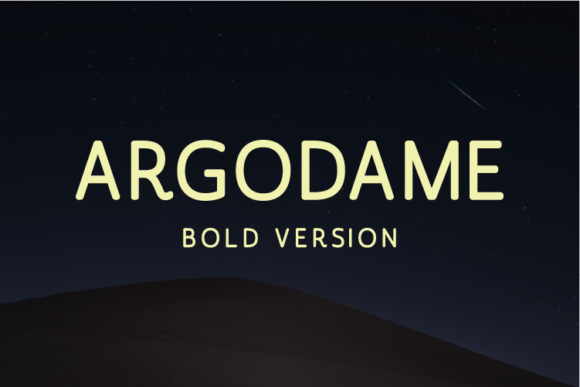
As a designer, you’ve probably experienced that moment when you’re staring at a blank page, searching for the perfect font to bring your idea to life. It’s like waiting for the right key to unlock the door to a beautiful melody – you know it’s out there, but you’re not quite sure what it sounds like yet.
That’s where the Argodame Bold Font comes in – a rounded sans serif font that exudes friendliness and expressiveness, making it an excellent choice for headlines, logotypes, and branding. Its modern and contemporary style, paired with classic proportions, make it a valuable addition to any designer’s toolkit.
With the Argodame Bold Font, you’ll be able to add a touch of sophistication and elegance to your designs, making it a go-to choice for books, magazines, motion graphics, and more.
Argodame Bold Font Key Features
- Font Family: Argodame Bold, a sans-serif font designed for clear readability
- Unique Characteristics: Argodame Bold features a distinctive, modern design with a strong emphasis on legibility, making it ideal for use in digital products, signage, and corporate branding
- Font Weight: Available in a single bold weight, perfect for creating a striking visual impact and emphasizing key messages
Argodame Bold Font Review
I recently had the chance to work with the Argodame Bold Font, and I’m excited to share my thoughts with you.
- ✨ Unique and modern aesthetic that adds a touch of sophistication to any design project
- ✨ Excellent legibility, even at smaller font sizes, making it perfect for body text and headings
- ✨ Robust and reliable, with a wide range of languages and character sets supported
- ⚠️ Limited font weight options, which might not be ideal for designers who prefer more subtle variations
- ⚠️ Not ideal for use in very small font sizes, as it can appear slightly distorted
- ⚠️ Some users may find the font’s boldness overpowering in certain contexts
Overall, I’m impressed with the Argodame Bold Font’s unique style and versatility. While it may not be perfect for every design project, it’s a great addition to any font library. With a little creative nuance, it can add a real pop to your designs.
Argodame Bold is ideal for headings and titles due to its bold and modern design. It pairs well with sans-serif fonts like Open Sans or Arial. Use it to create attention-grabbing headlines, or to emphasize important information.